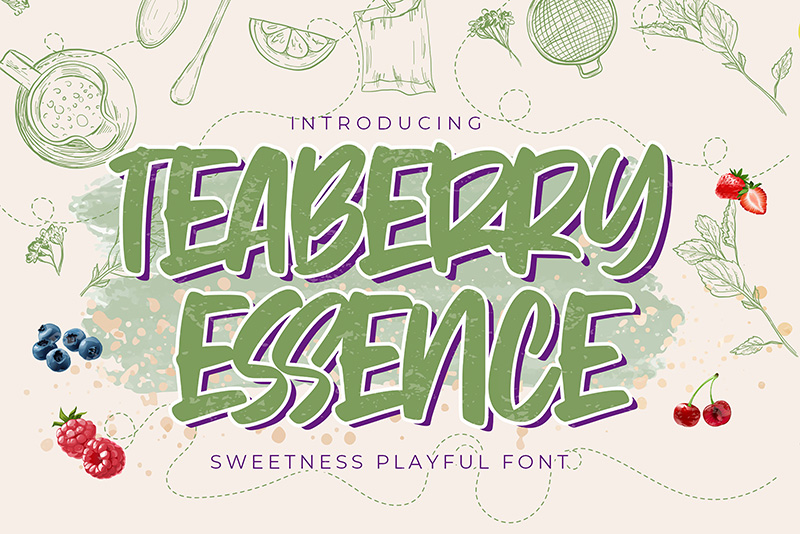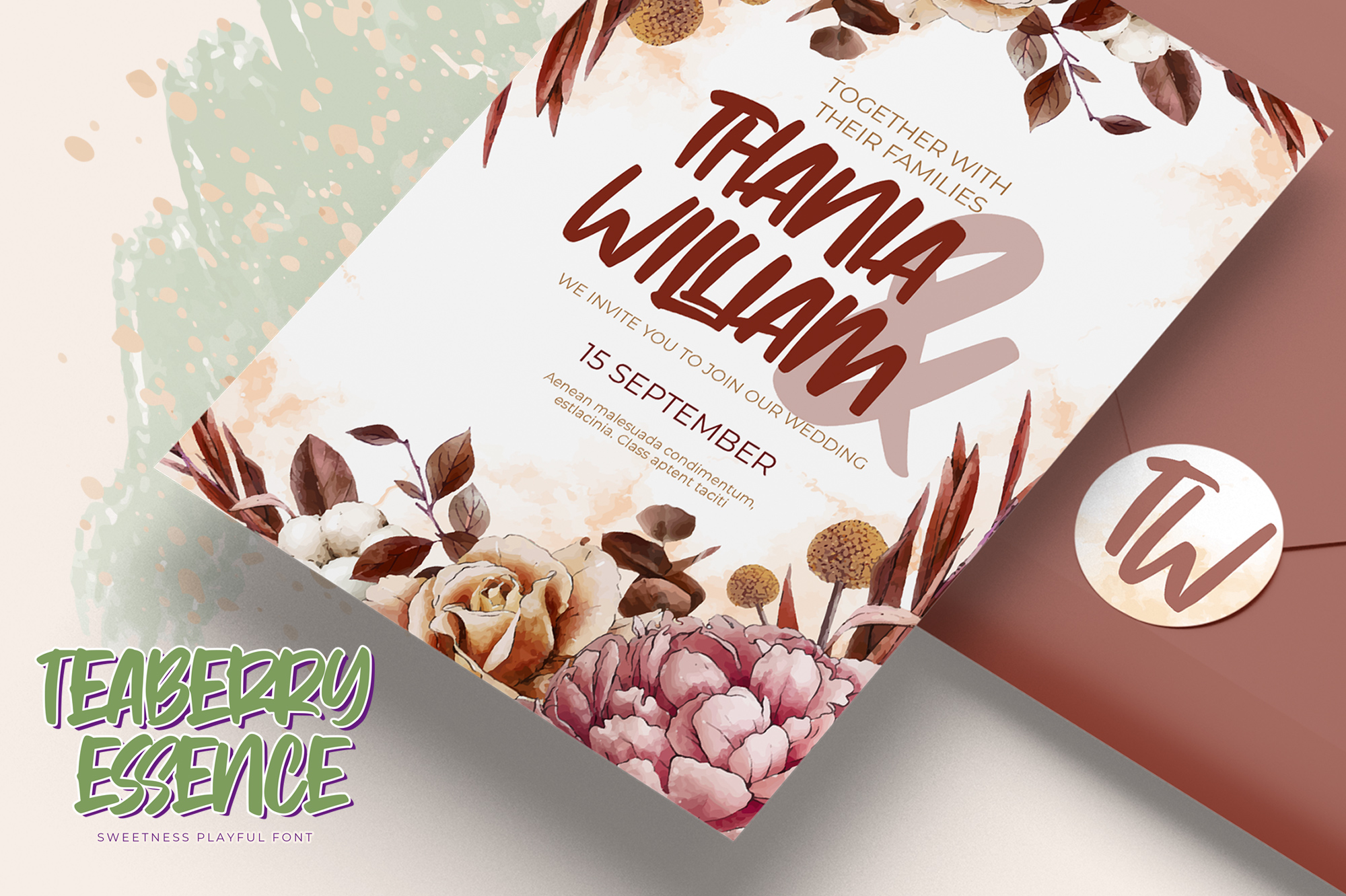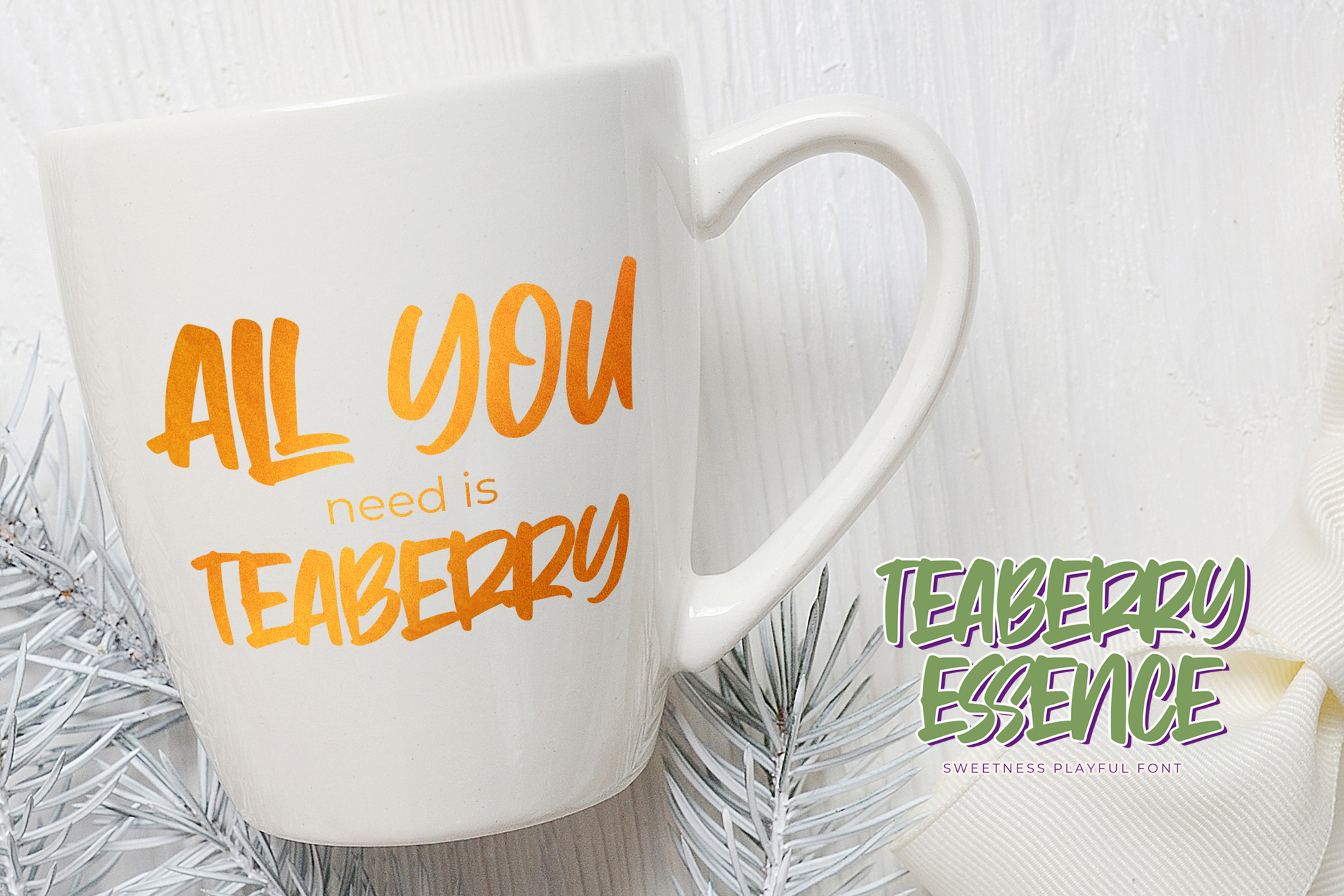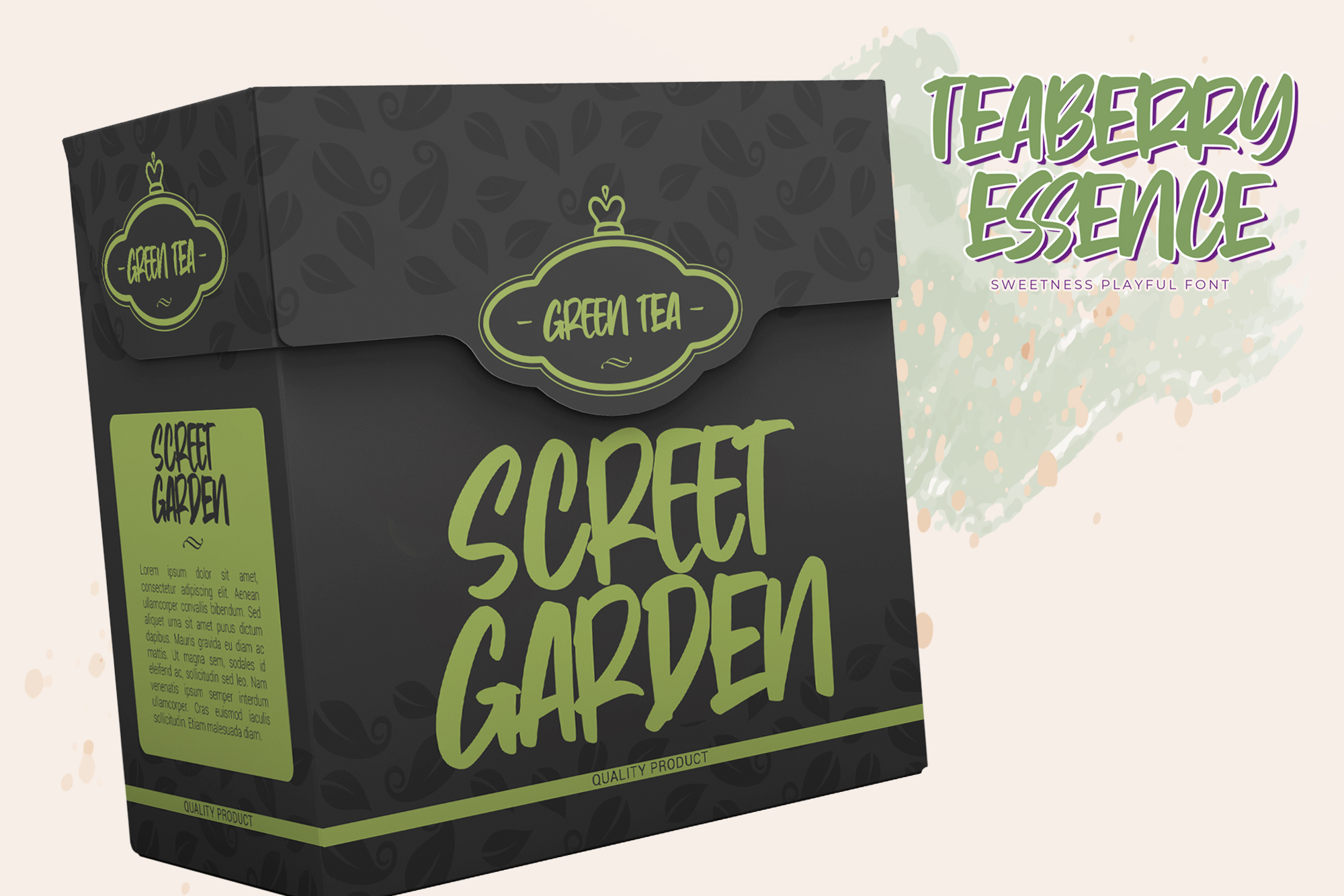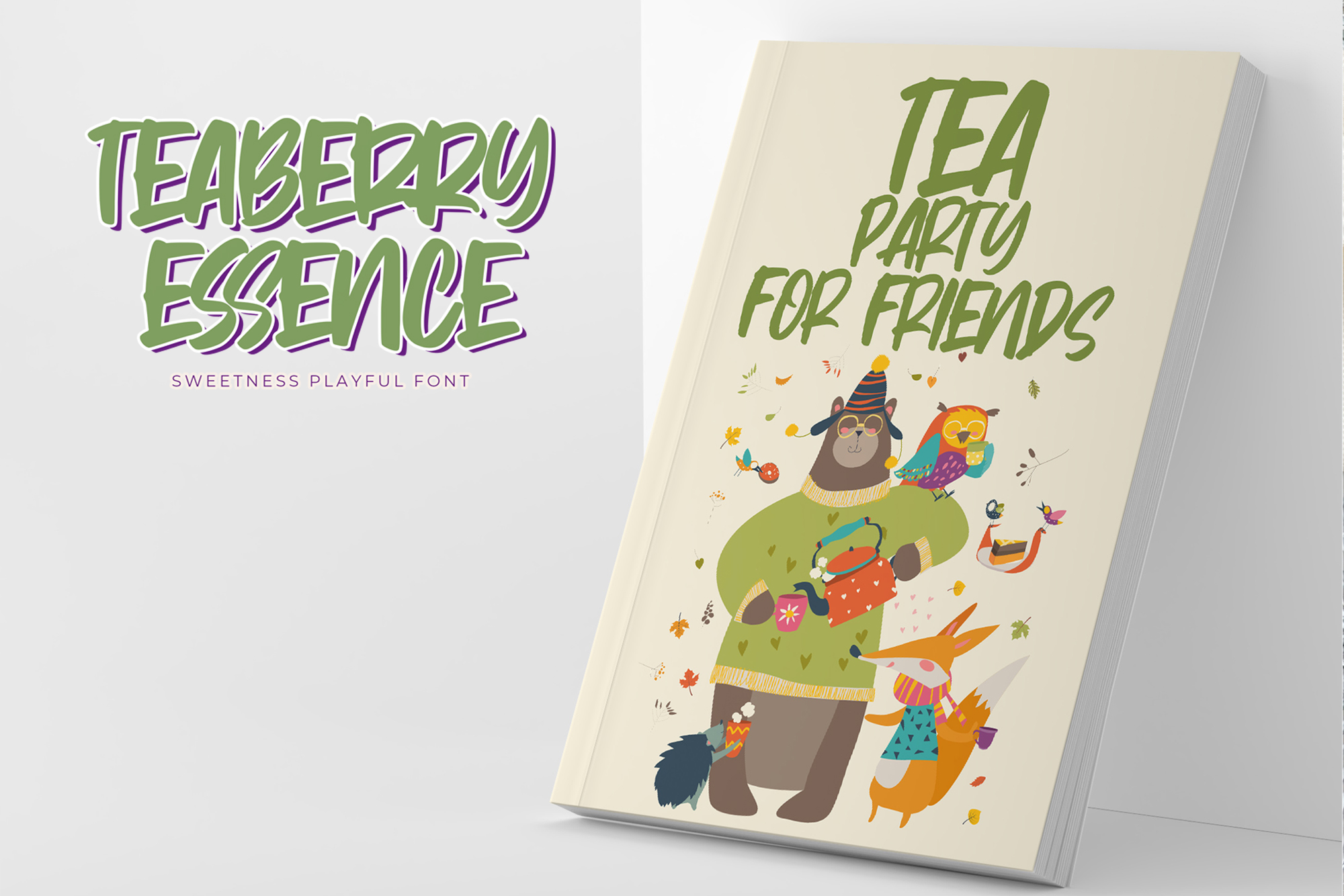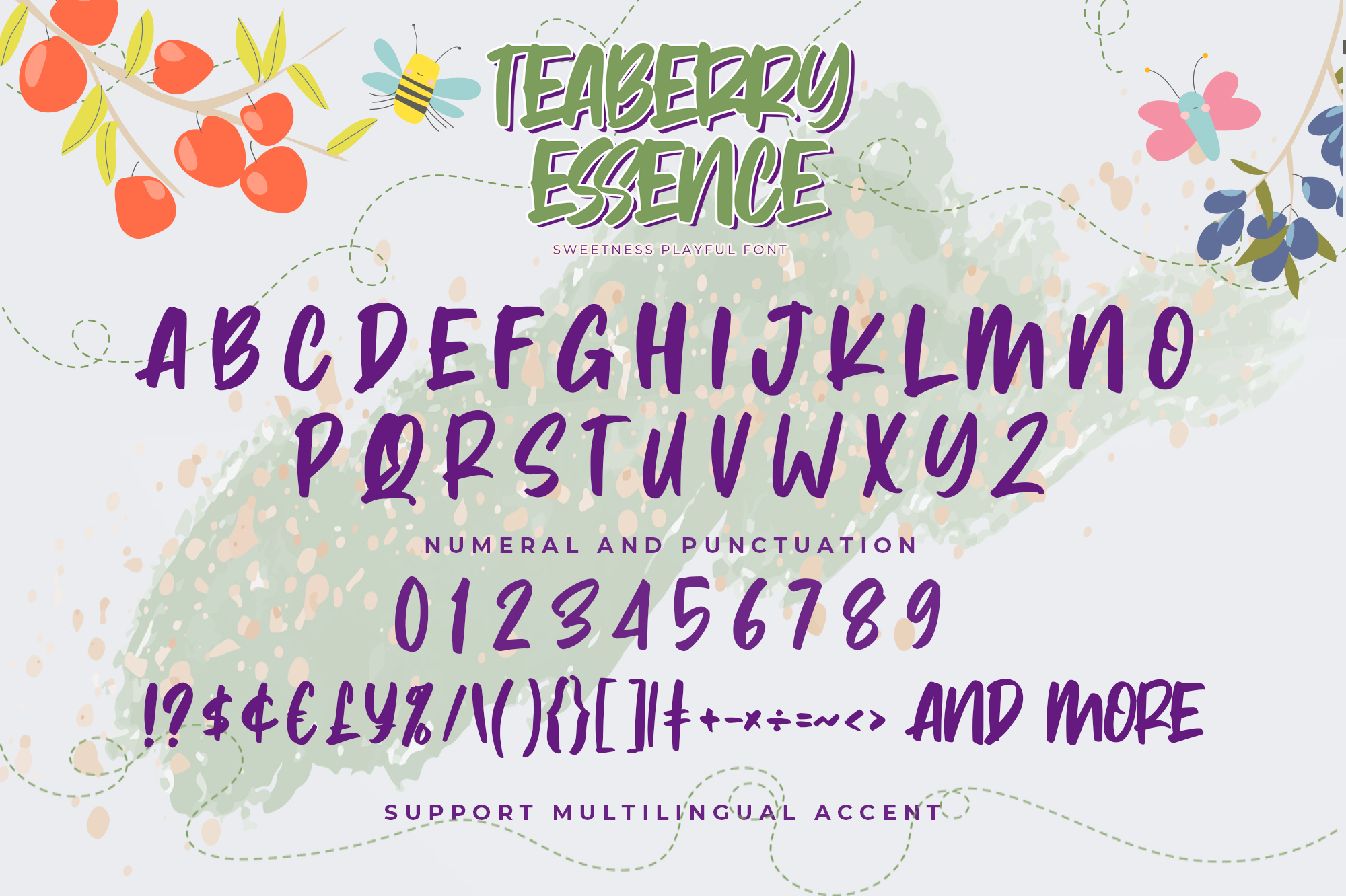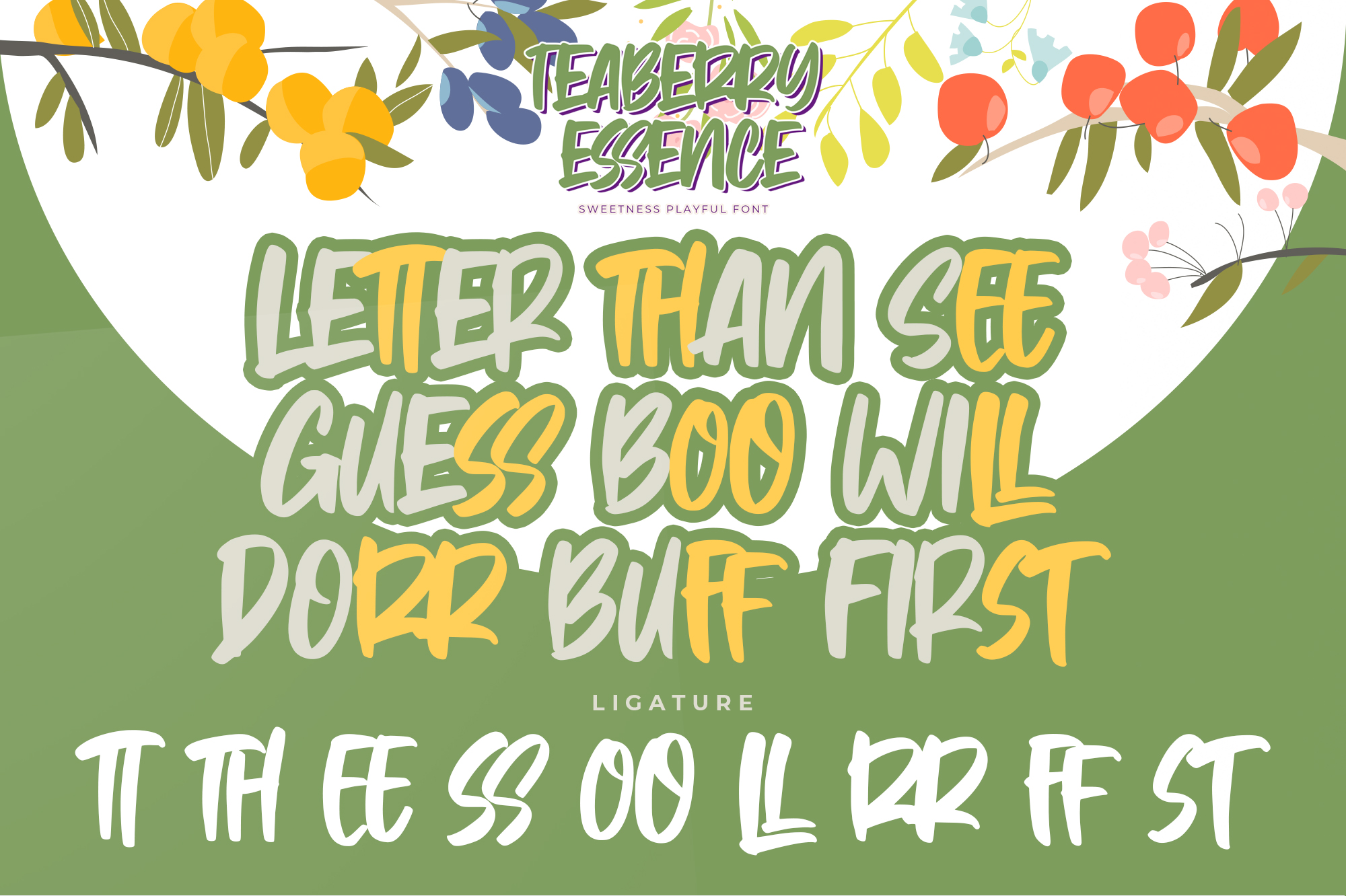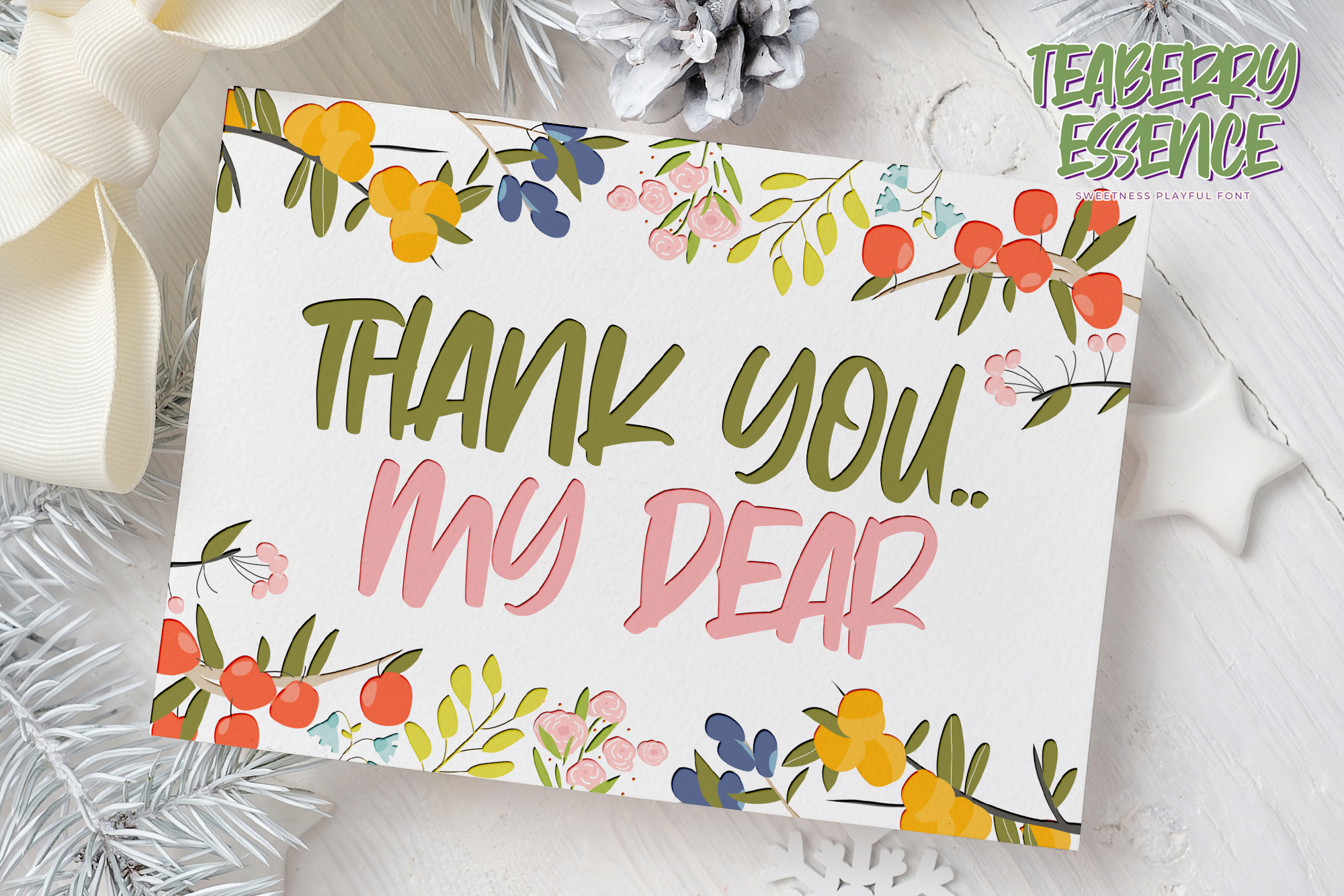
Teaberry Essence – Sweetness Playful Font is an Authentic display Font that is written casually and quickly.
That is why Teaberry Essence has a sweet, and unique characteristic more natural look. You can activate Ligatures OpenType panel.
Teaberry Essence Perfect for designs, branding projects, Logo design,Quotes product packaging and another Project that require allcaps font.